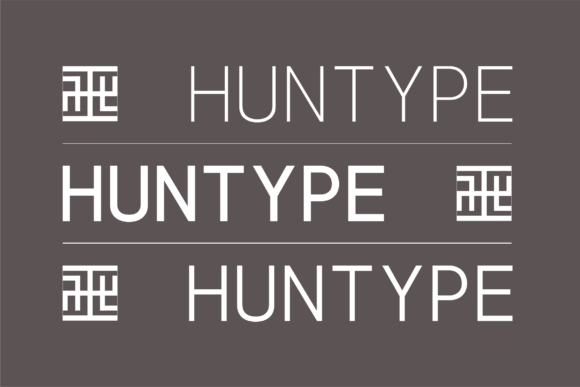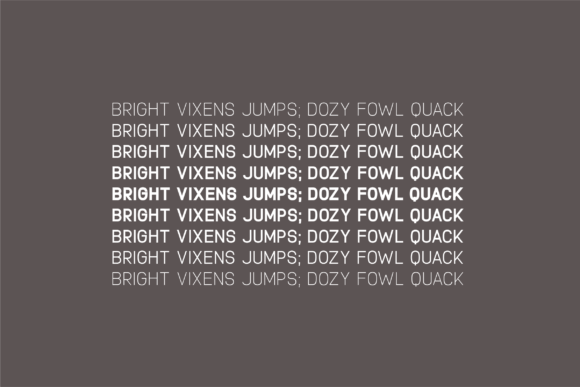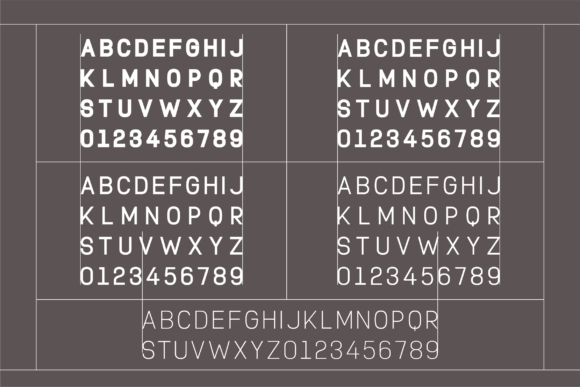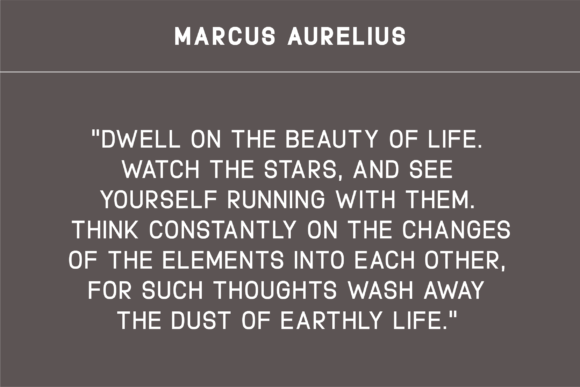
Introduction to Proteqh Font
Introducing Proteqh, a meticulously crafted font family that epitomizes elegance, modernity, and versatility.
| ๐ค Author | Huntype |
With its five distinct weightsโthing, light, regular, bold and black Proteqh offers a wide range of creative possibilities, making it the perfect choice for designers and content creators.
Key Features of Proteqh Font
Why Choose Proteqh Font?